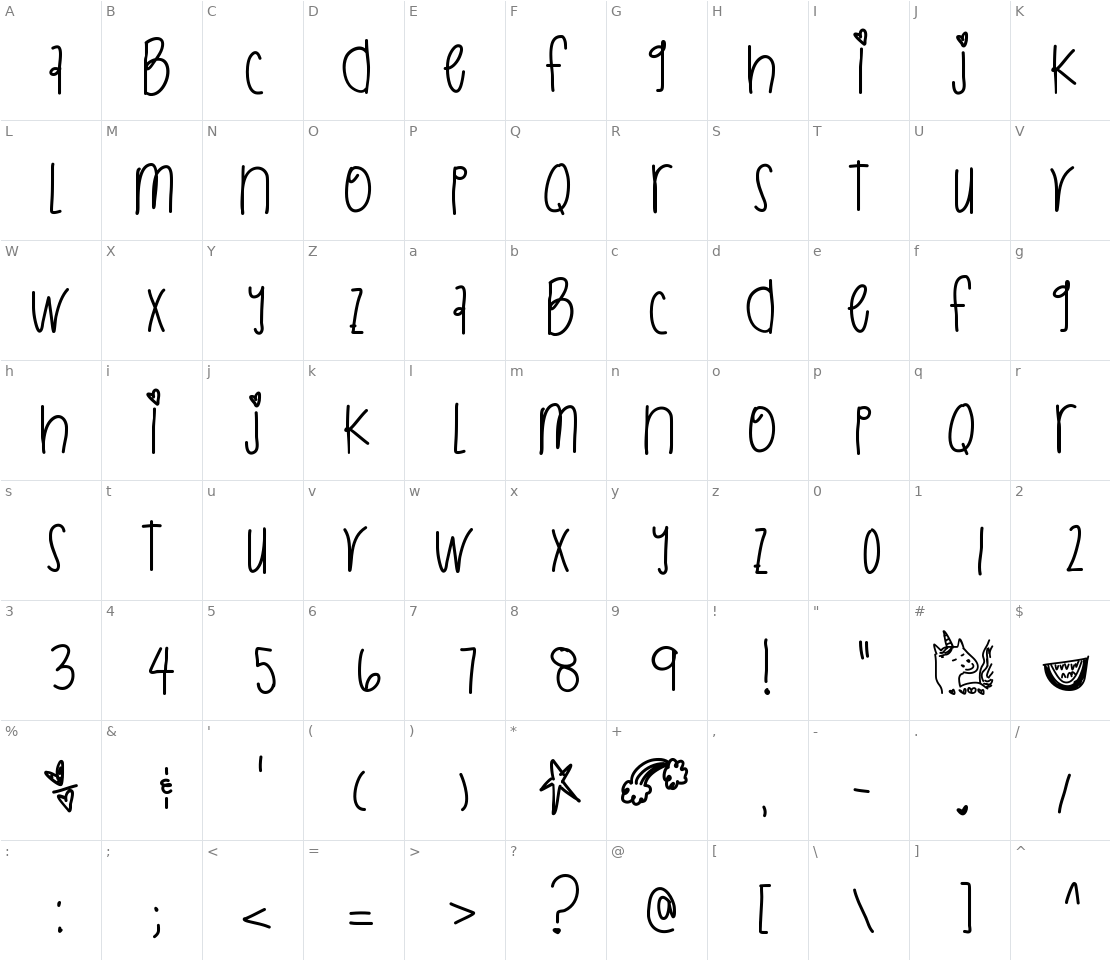
Rainbow Dashhh
by Des Gomez
Rainbow Dashhh is a light, playful handwritten face from Des Gomez with thin, bouncy letterforms that feel like they were scribbled by an enthusiastic kid with a favorite pen. The strokes are casual and slightly uneven, giving it a genuine childlike charm that works for invitations, greeting cards, children's books, and anything that needs to feel warm and whimsical without trying too hard.